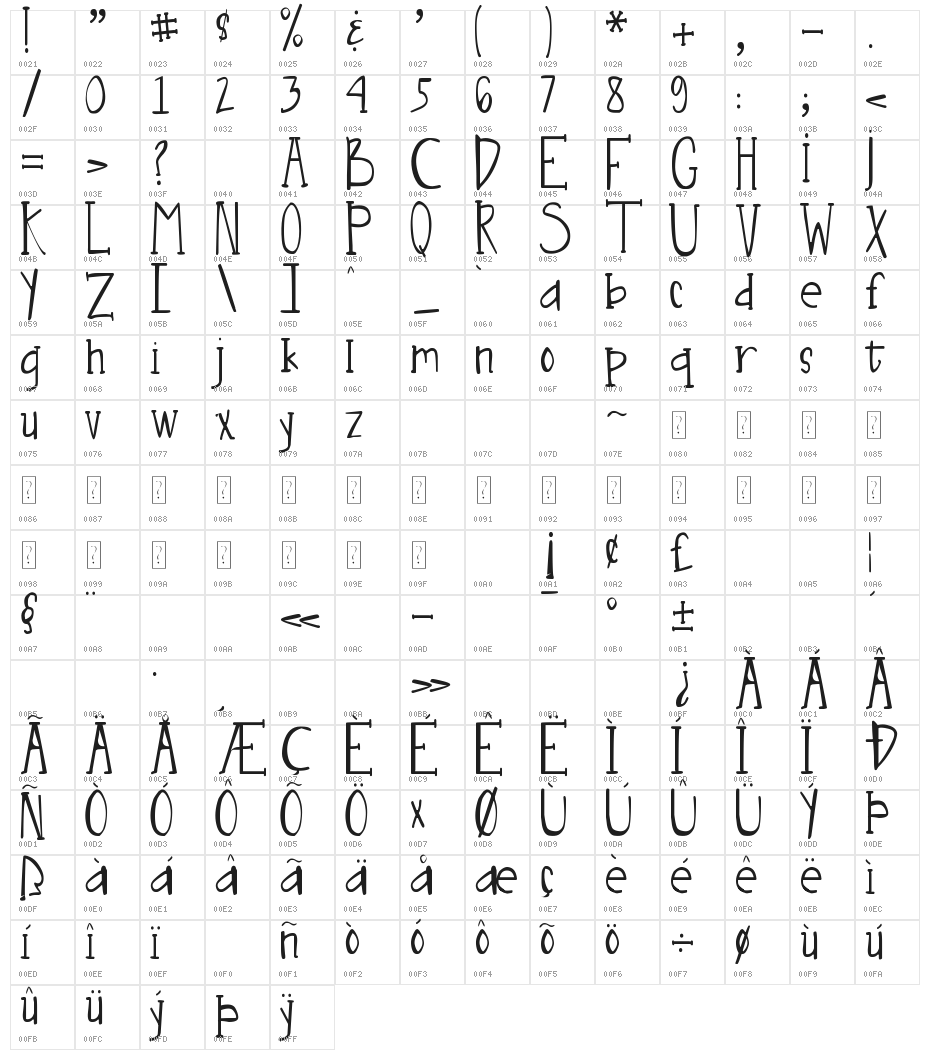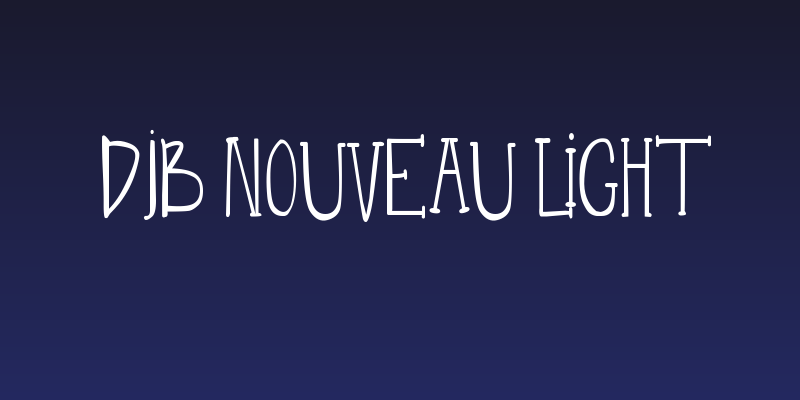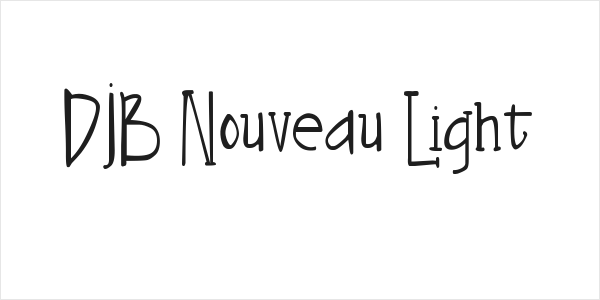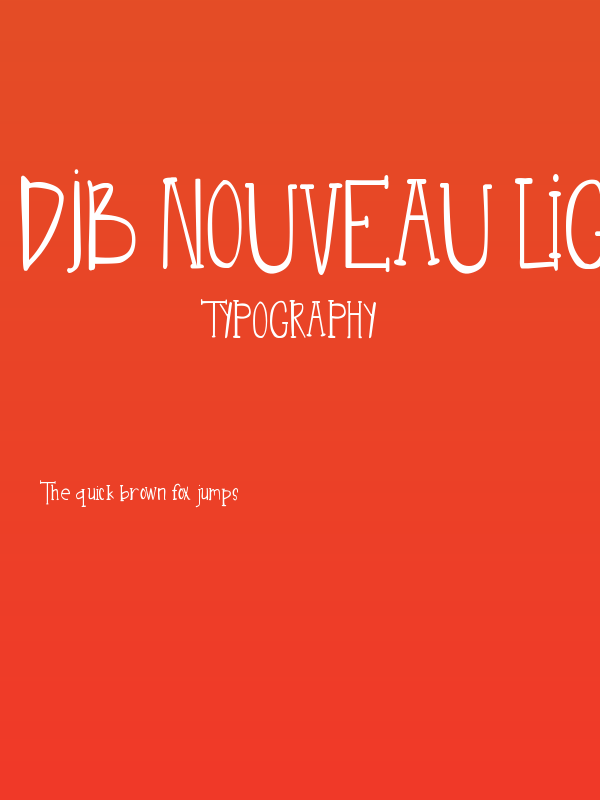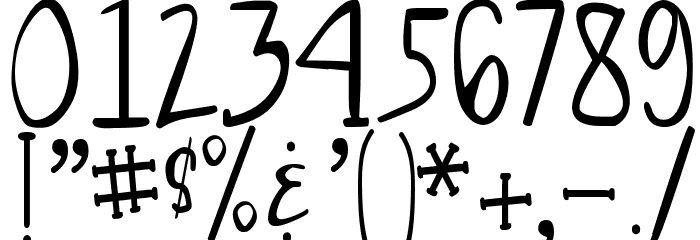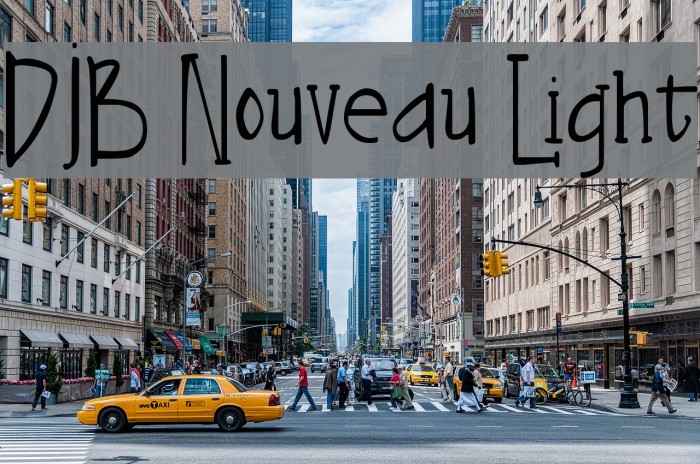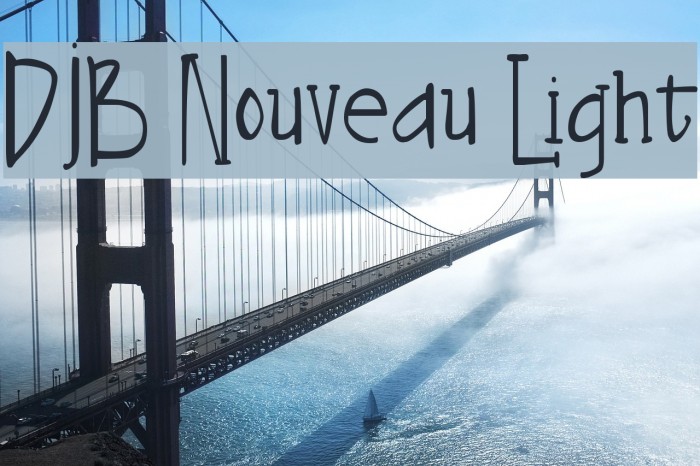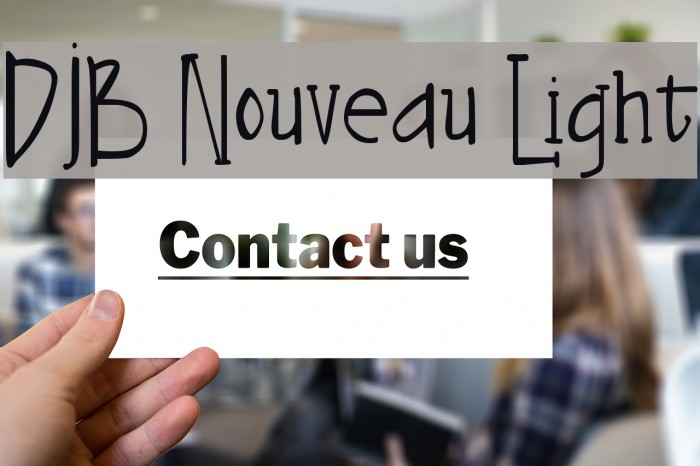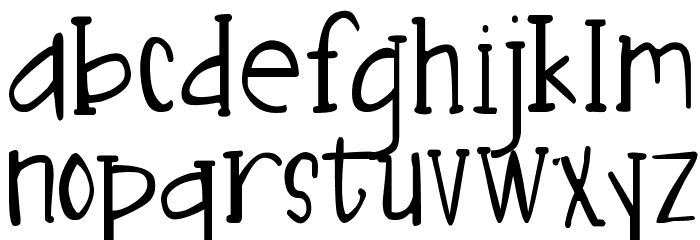
DJB Nouveau Light Font
This font features a playful and whimsical design, characterized by its tall, narrow letters and slightly irregular strokes. The uppercase letters are distinct with a mix of straight and curved lines, giving them a unique, hand-drawn appearance. Lowercase letters maintain this playful style, with some letters like 'e' and 'a' having a charming looped structure. The numbers are similarly styled, maintaining consistency with the alphabet. Special characters are creatively designed, adding to the font's overall quirky and artistic feel. This font is perfect for projects that require a touch of creativity and individuality.
| Proposed Projects | Ideal for children's books, creative posters, greeting cards, and playful branding. |